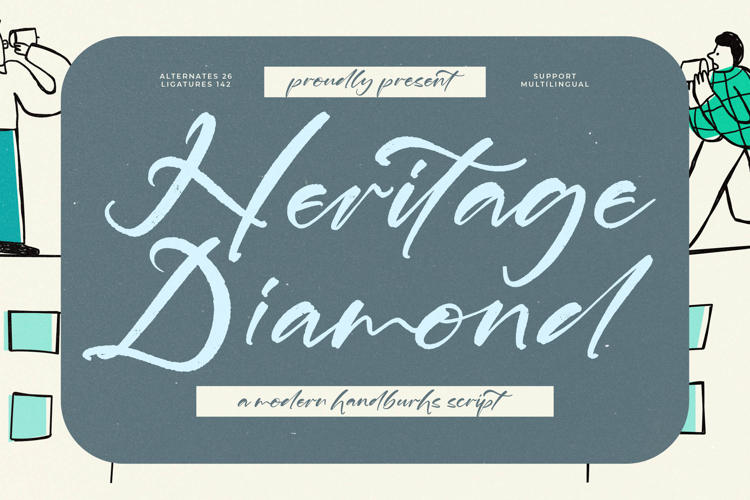
Heritage Diamond - Modern Handbrush Script
Unleash authentic, high-impact typography with true handmade character. Heritage Diamond - Modern Handbrush Script is a stunning, dynamic script typeface that captures the raw energy and imperfect beauty of genuine ink on paper. Its bold, expressive strokes exhibit a compelling, slightly rugged texture, providing an immediate sense of craftsmanship and uniqueness. This modern design expertly balances legibility with artistic flair, making it an ideal choice for projects demanding both style and substance, emphasizing a premium, bespoke feel.